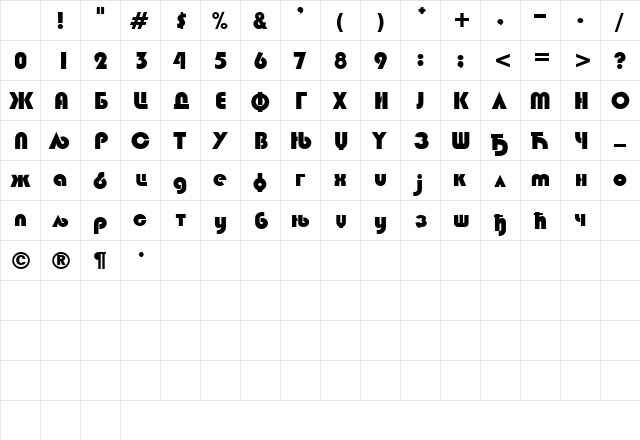
Complete C_Hippo Bold Bold glyph index. Displaying only characters natively supported by C_Hippo Bold Bold font.
C_Hippo Bold is a composed and adaptable typeface that performs quietly and consistently across a wide range of design contexts. Its bold stroke weight gives it real presence on the page.